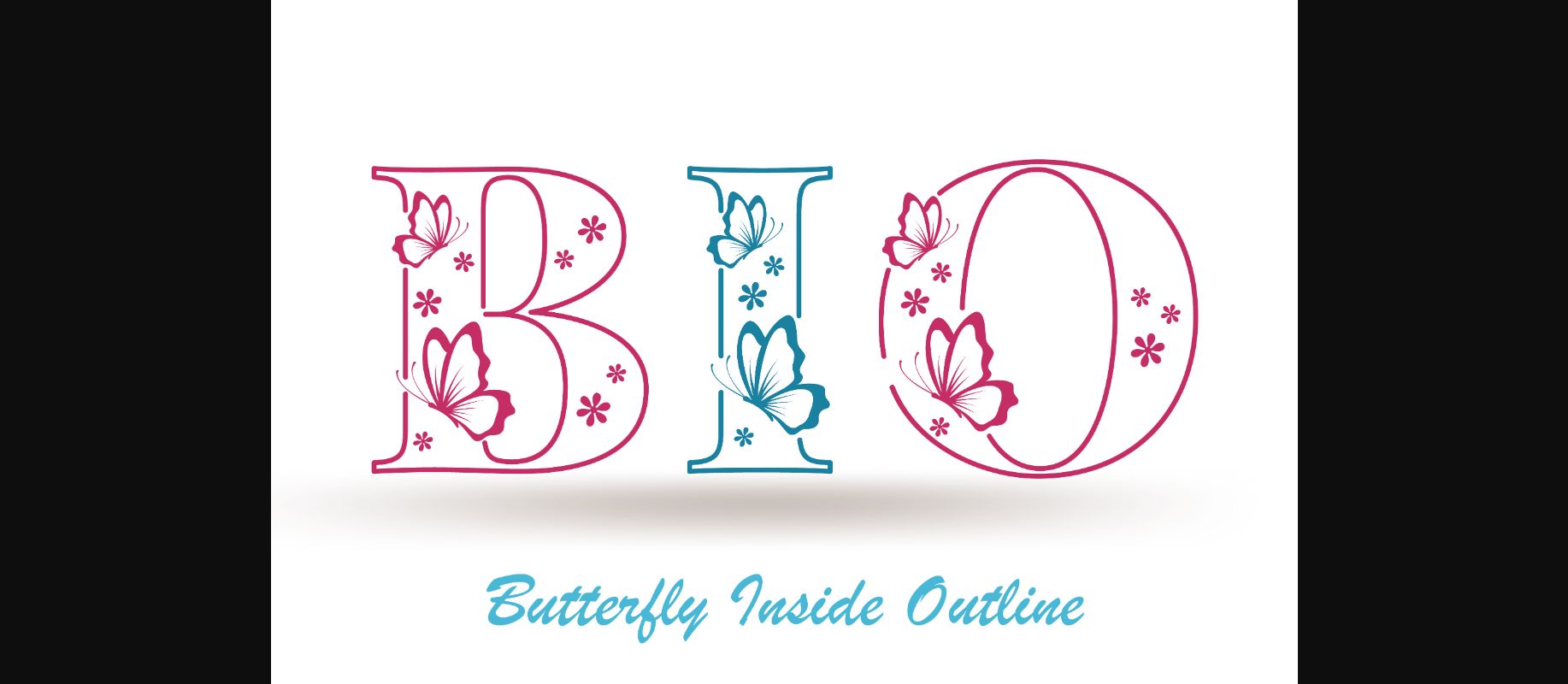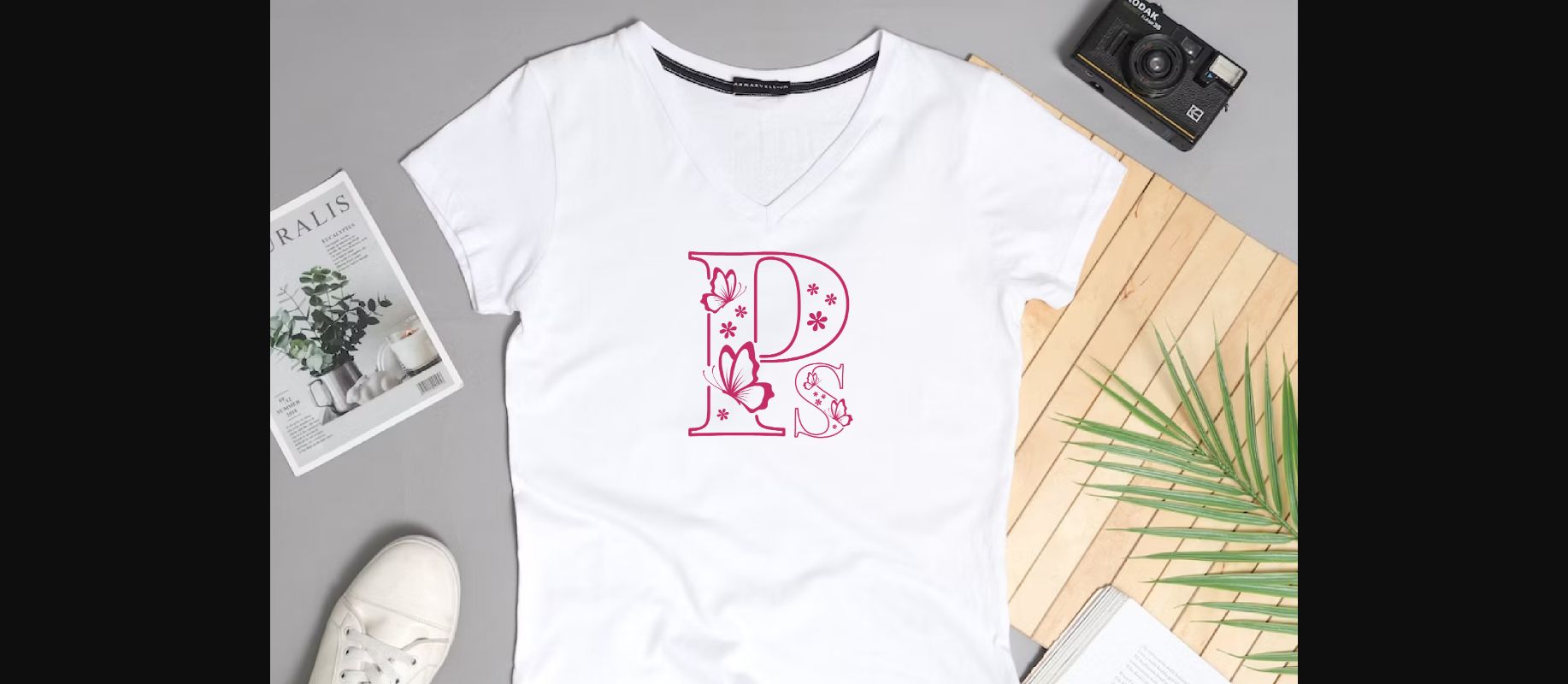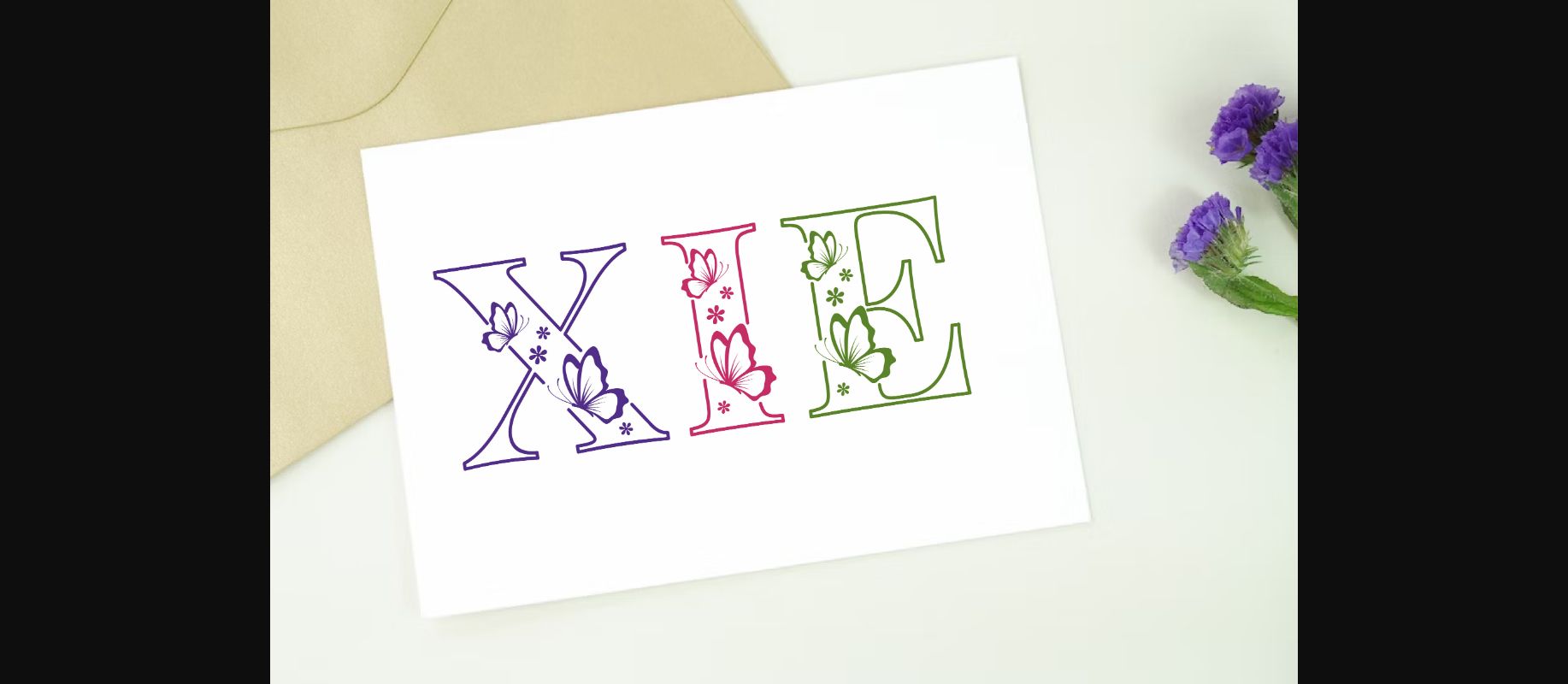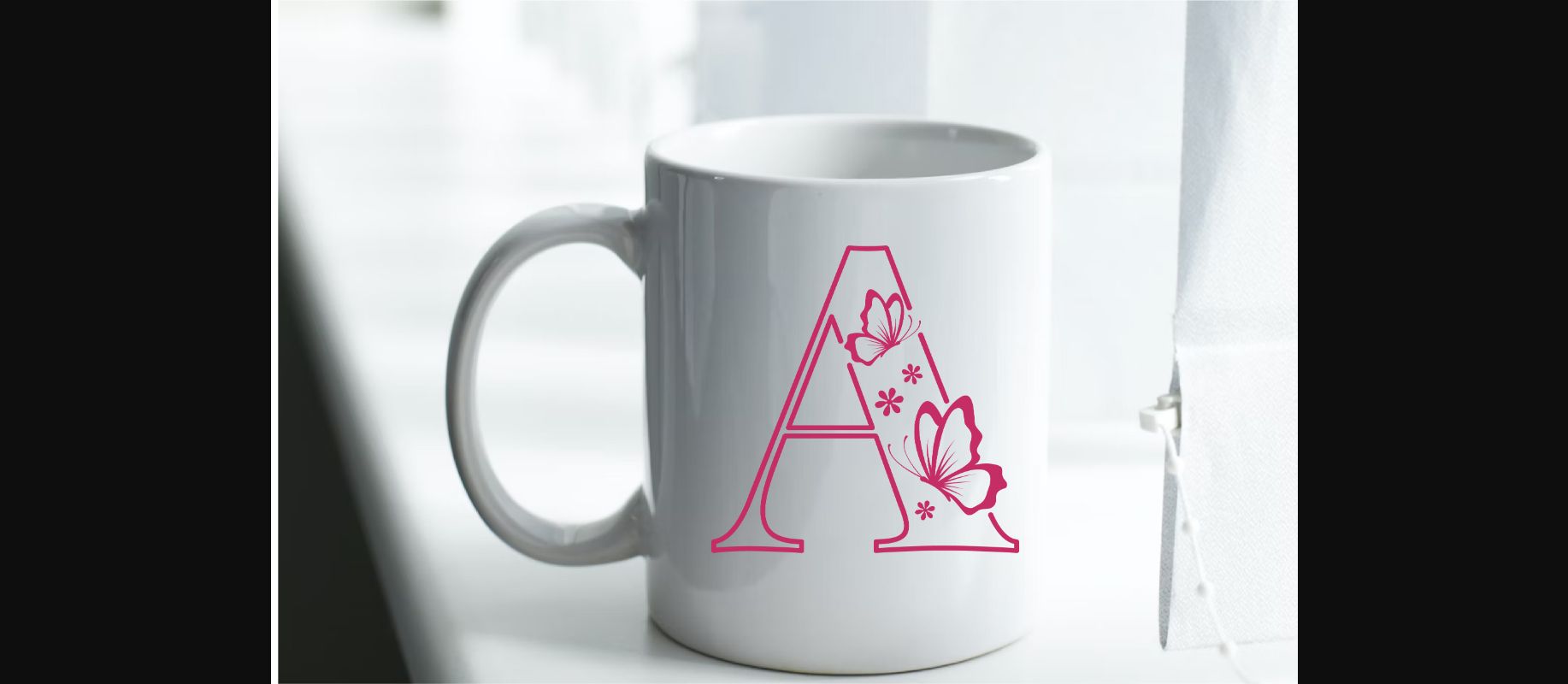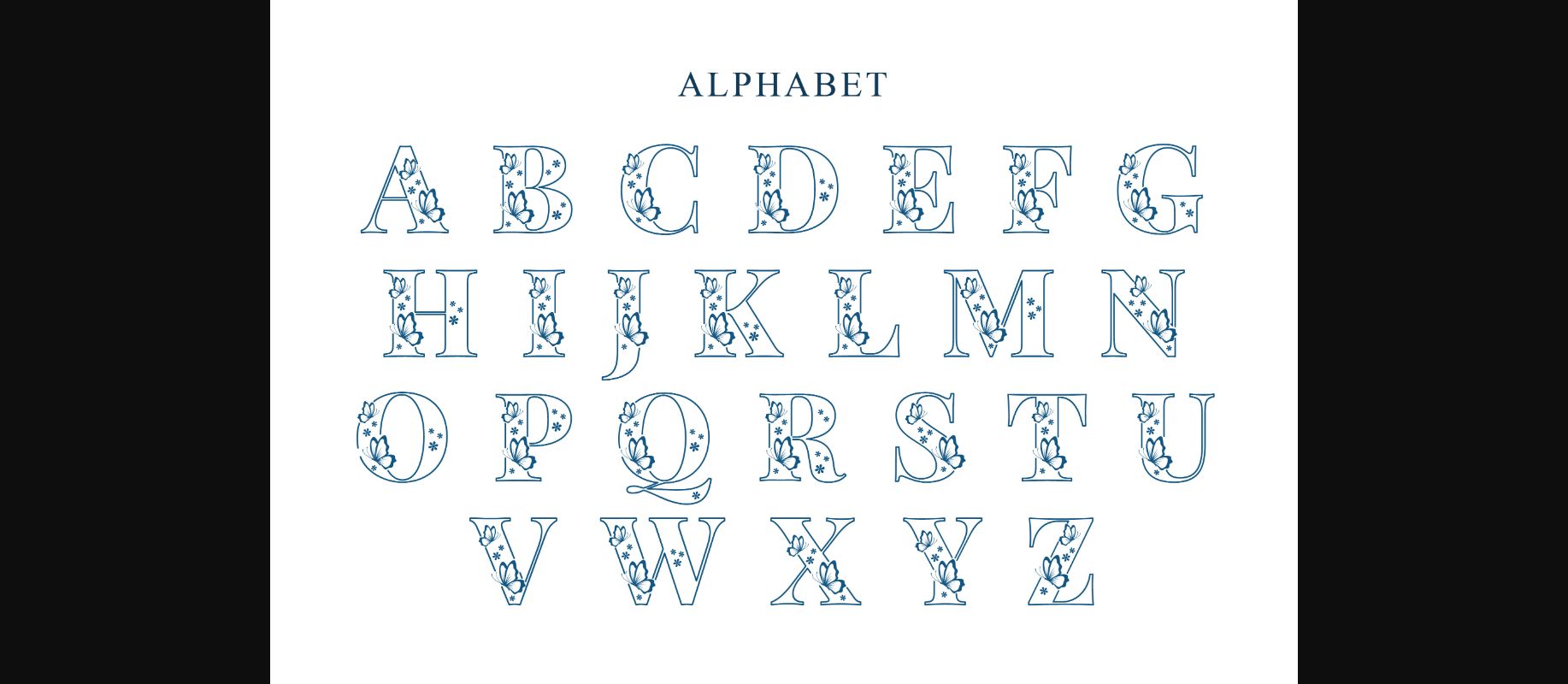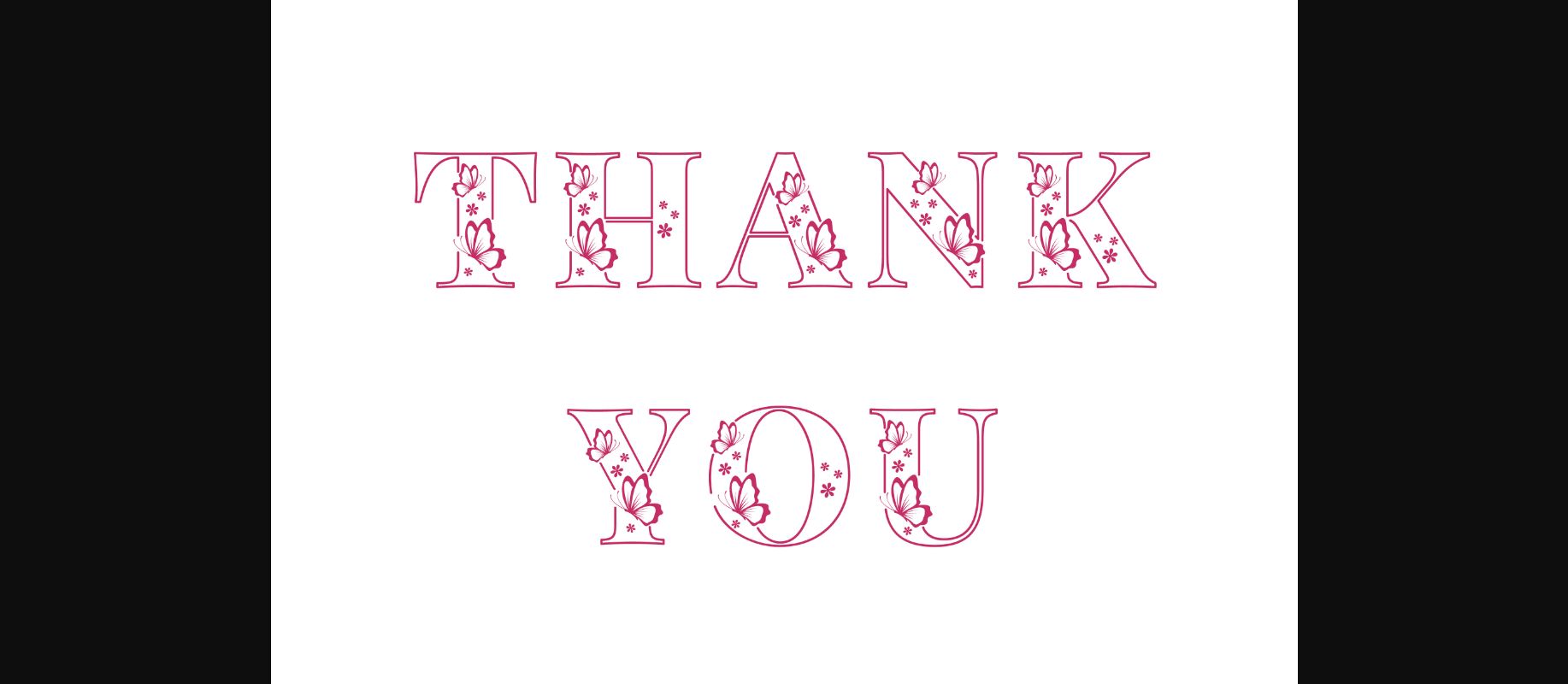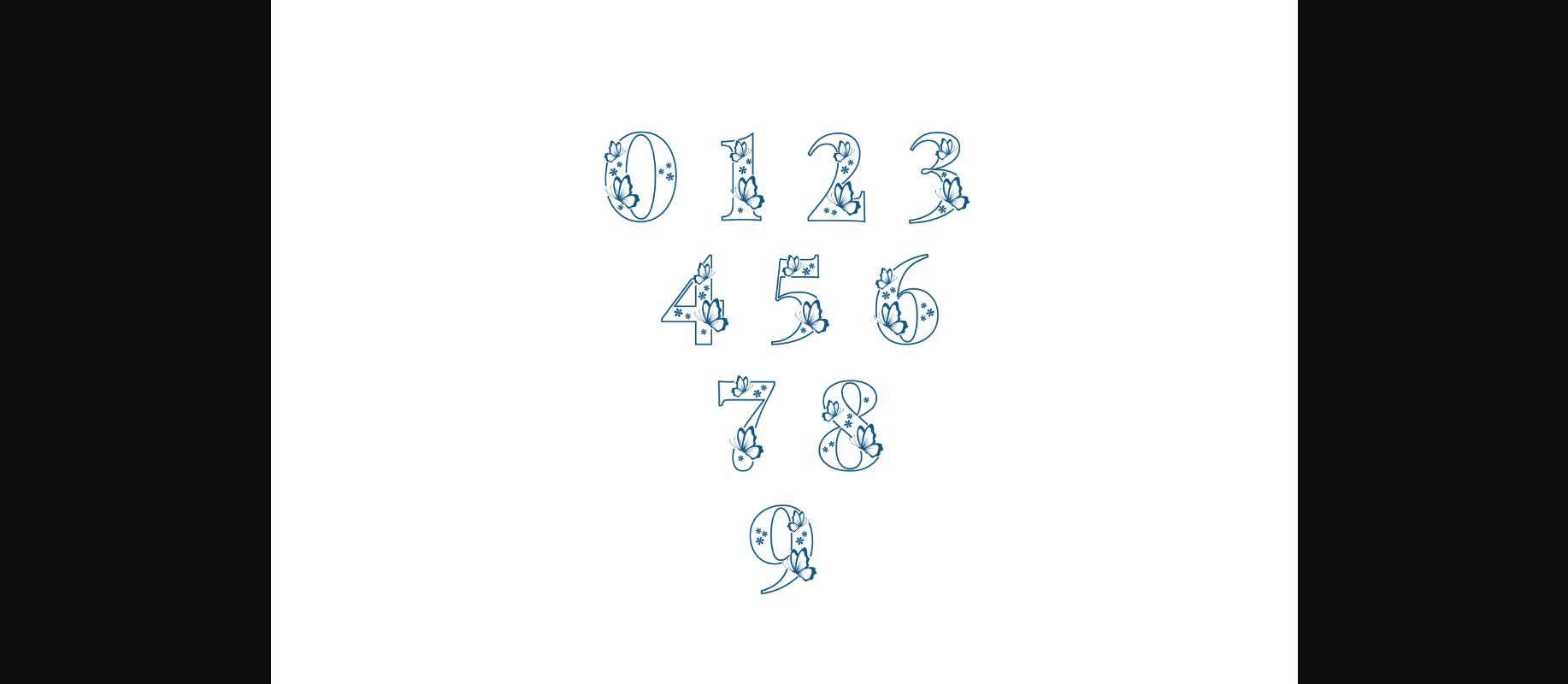
Butterfly Inside Font
About Butterfly Inside Font
Butterfly Inside Outline is an elegant decorative font, featuring lovely ornaments. Fall in love with its authentic feel and use it to create gorgeous stationary art, eye-catching social media posts, and cute greeting cards.